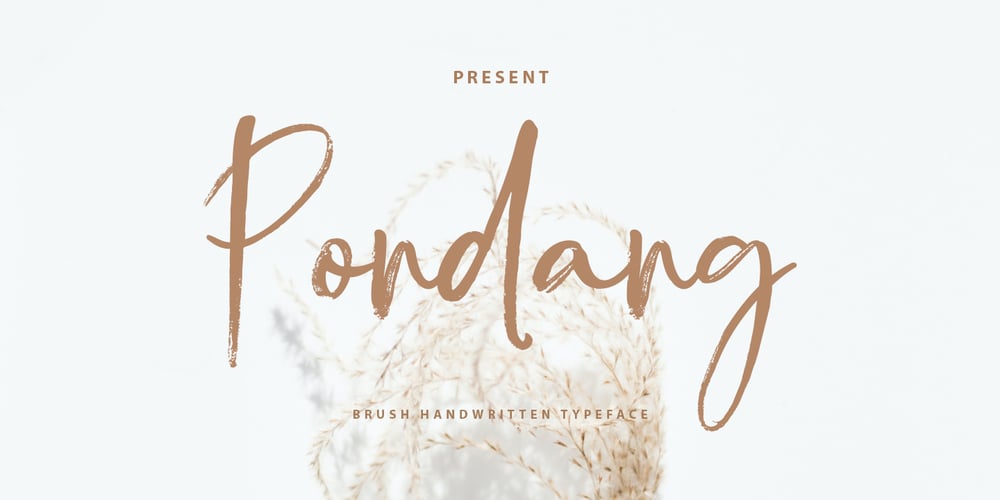
Pondang Brush Font Family was designed by Alam Syahril and published by Realtype. Pondang Brush contains 1 styles and family package options. Always handwritten fonts with an authentic look.Modern handwritten font with brush texture. Its authentic texture makes it the perfect choice for branding and digital design.This font is perfect for branding, logos, web, instagram, quotes, business cards, signs, headers, blogs, branding, invitations, and more!Thank you!